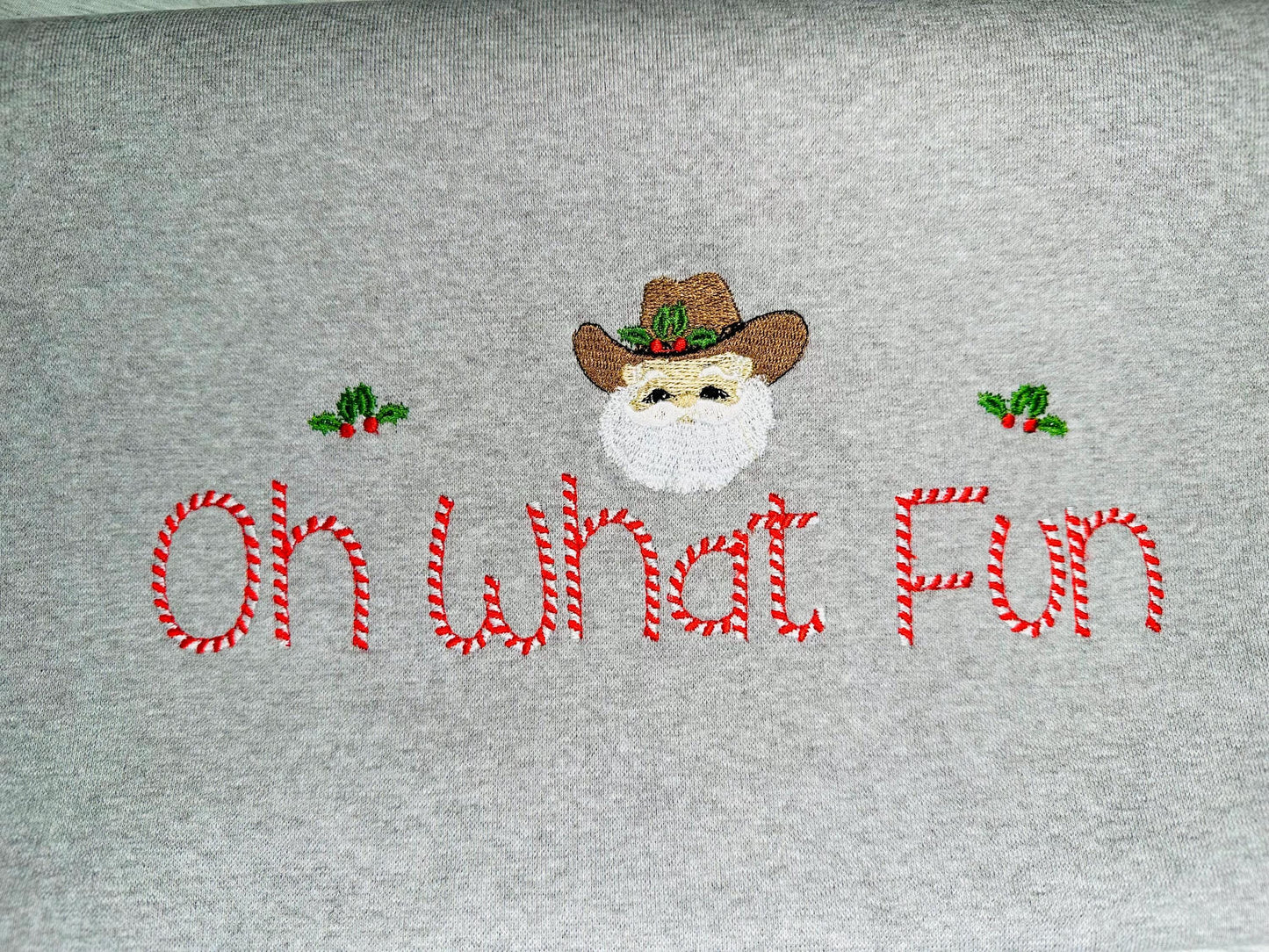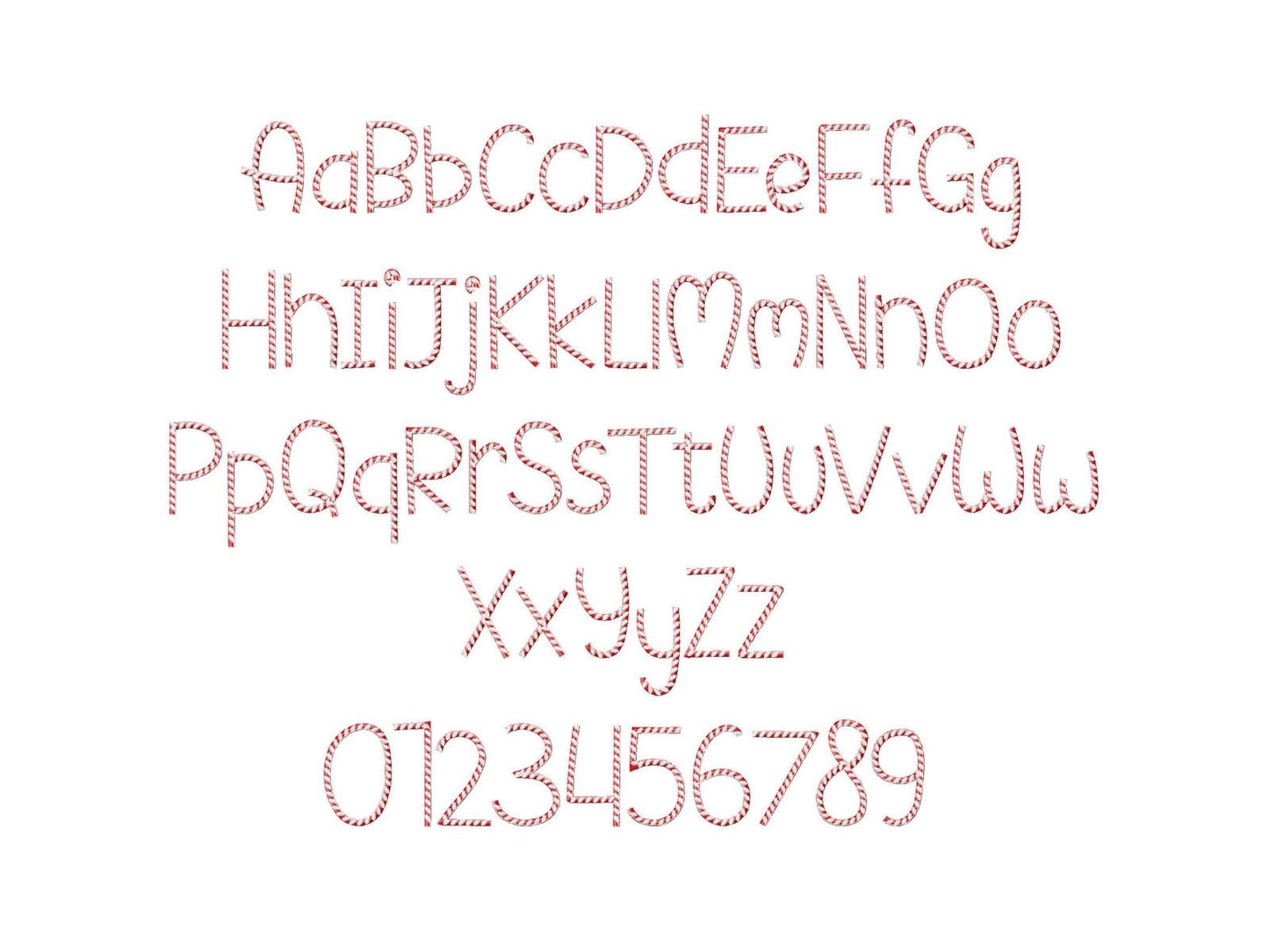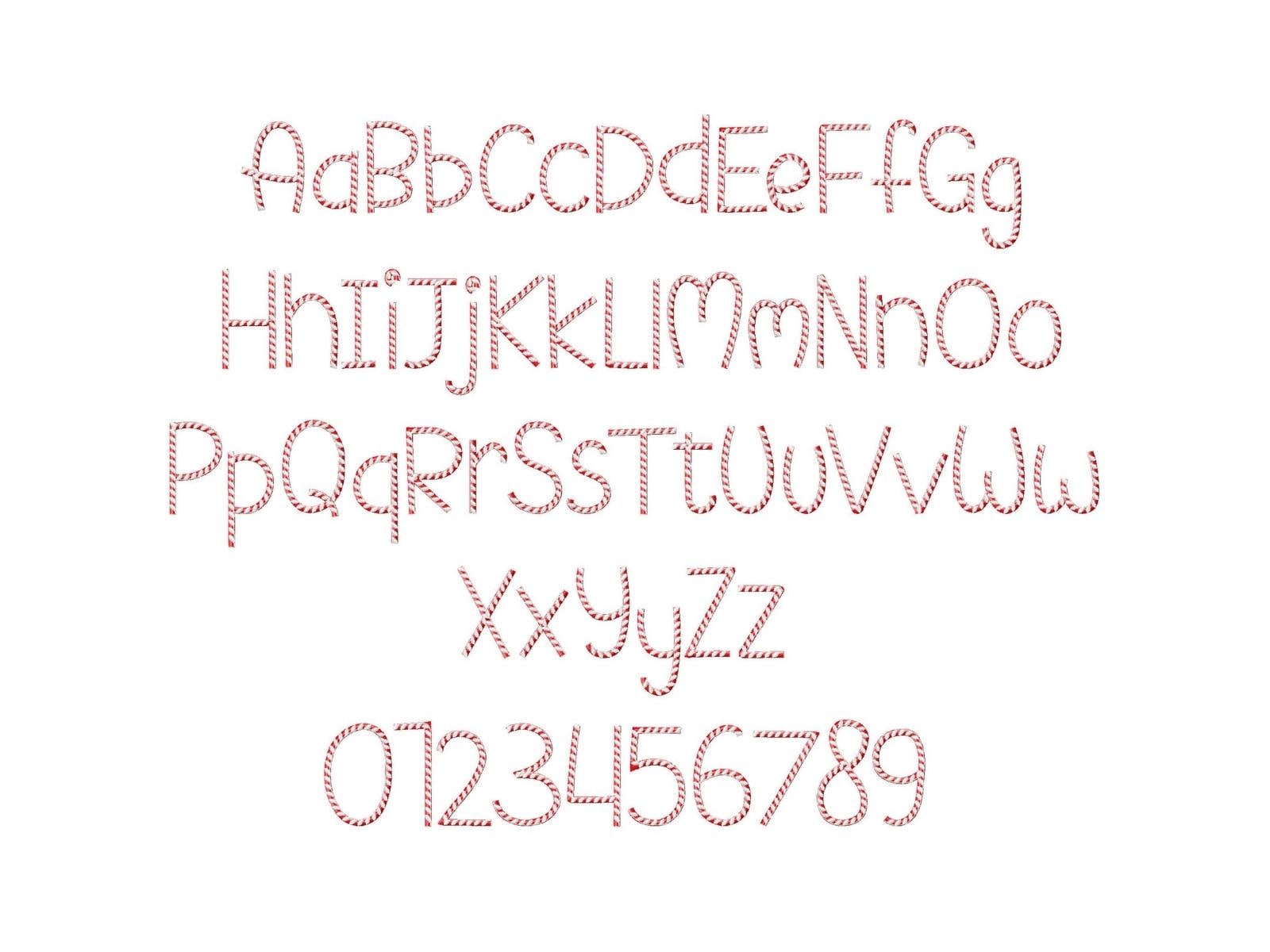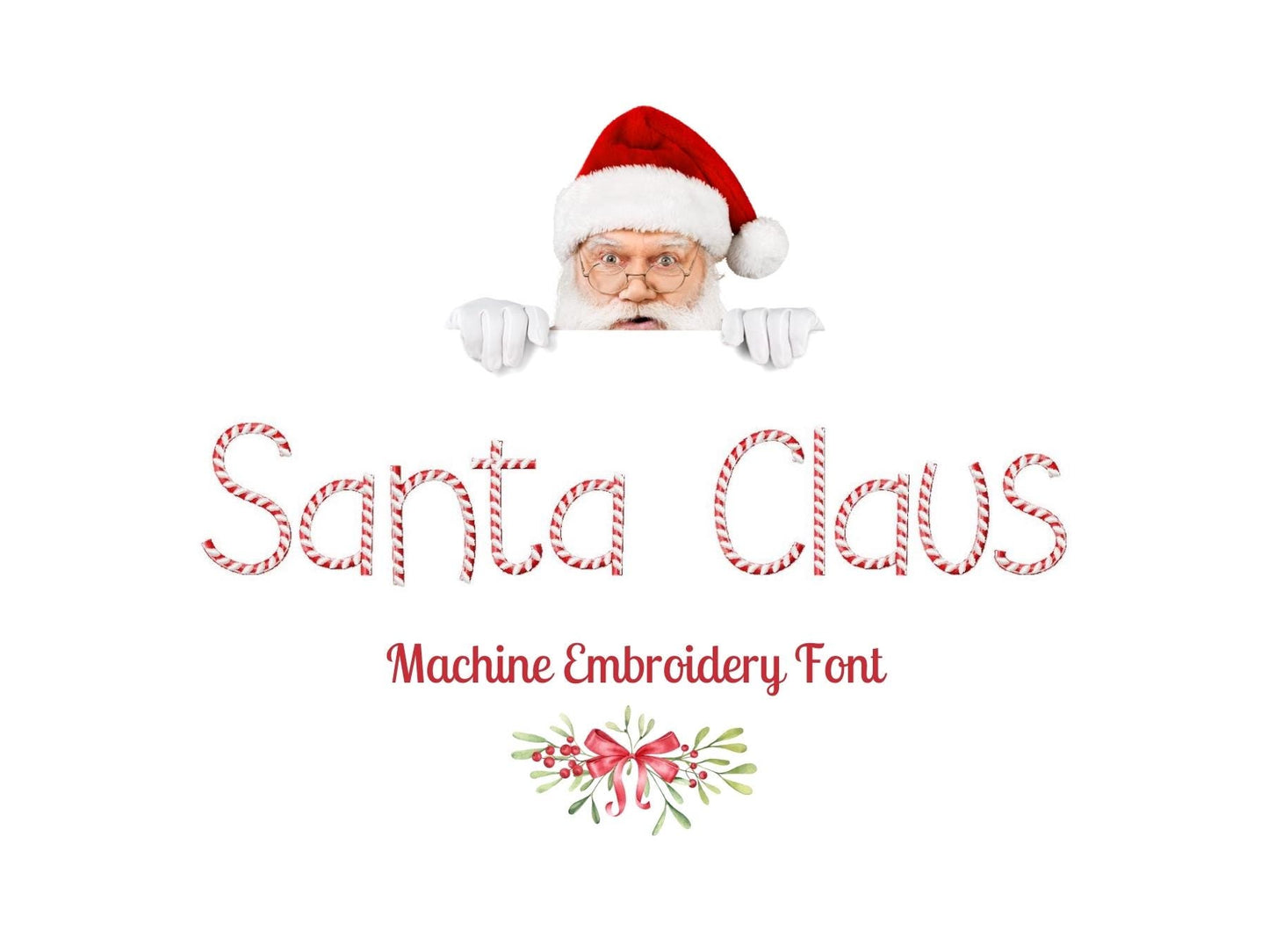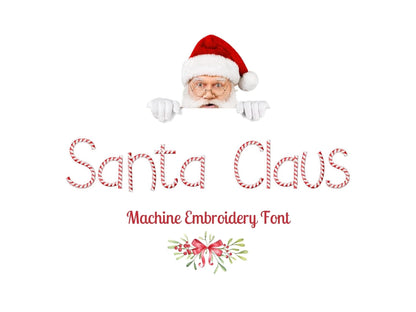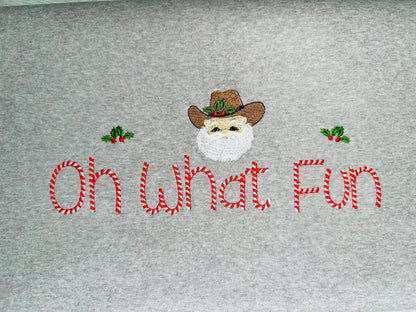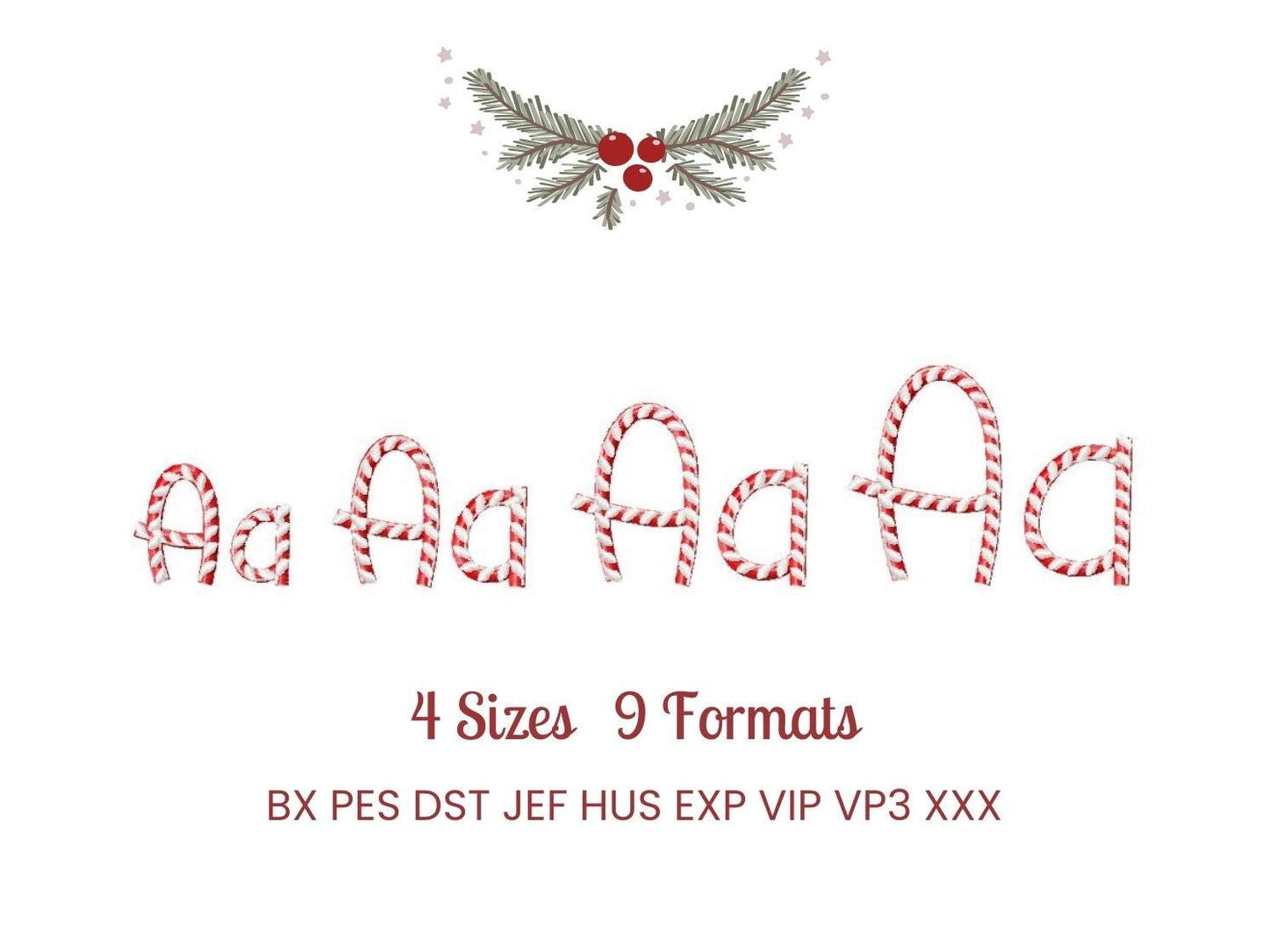
Or click to open the linkA tiny two-color candy cane font for Christmas stockings, ornaments, holiday shirts and small names.
Uppercase and lowercase letters and numbers 0 to 9 in four mini sizes: 1, 1.2, 1.4 and 1.8 inches. Candy cane stripes in two thread colors.